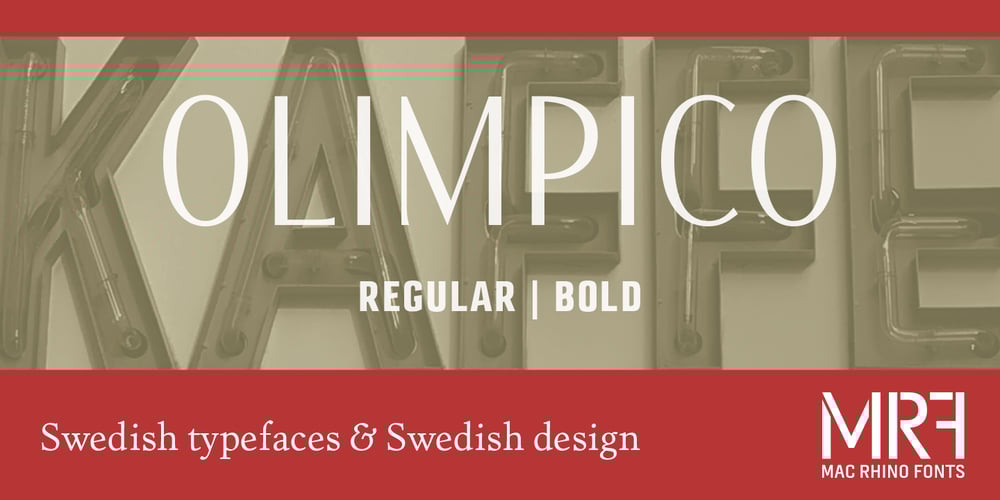
Olimpico Font Family was designed by Stefan Hattenbach and published by MAC Rhino Fonts. Olimpico contains 2 styles and family package options. The name of this typeface is a hymn to the Stadio Olimpico in Rome. The home arena to the World’s most beautiful football club – AS ROMA. A club with many great players through the years. The biggest of them all, is already a living legend… Francesco Totti. The design is a 2-weight family perfect for elegant display work. The regular weight is more even in blackness while the bold weight carry more contrast.